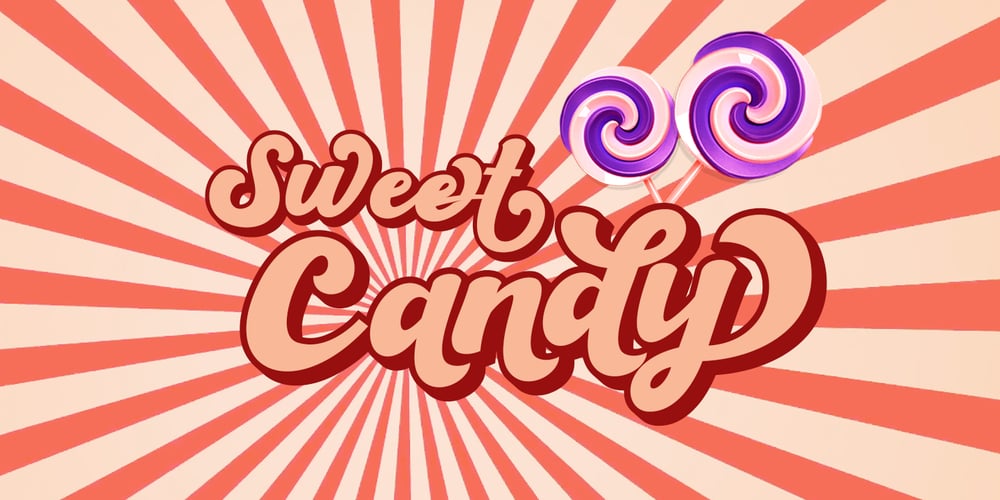
Arkana Font Family was designed by Sarwo Edhi Prayitno and published by Haksen. Arkana contains 2 styles and family package options. Arkana is a new bold, retro script. It is very suitable for advertisement products, branding materials, business designs brand, quotes, posters, t-shirt and more! This font are perfect for all brands. Happy Designing, Haksen